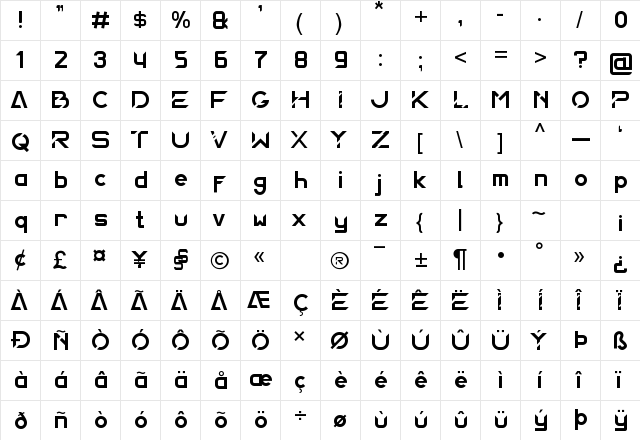
Limosin Regular Font Preview
Limosin Regular
Limosin Regular Font Details
Design Context for Limosin Typeface
Limosin takes a measured approach to typography — its balanced proportions and neutral character make it a reliable workhorse for both digital and print work.